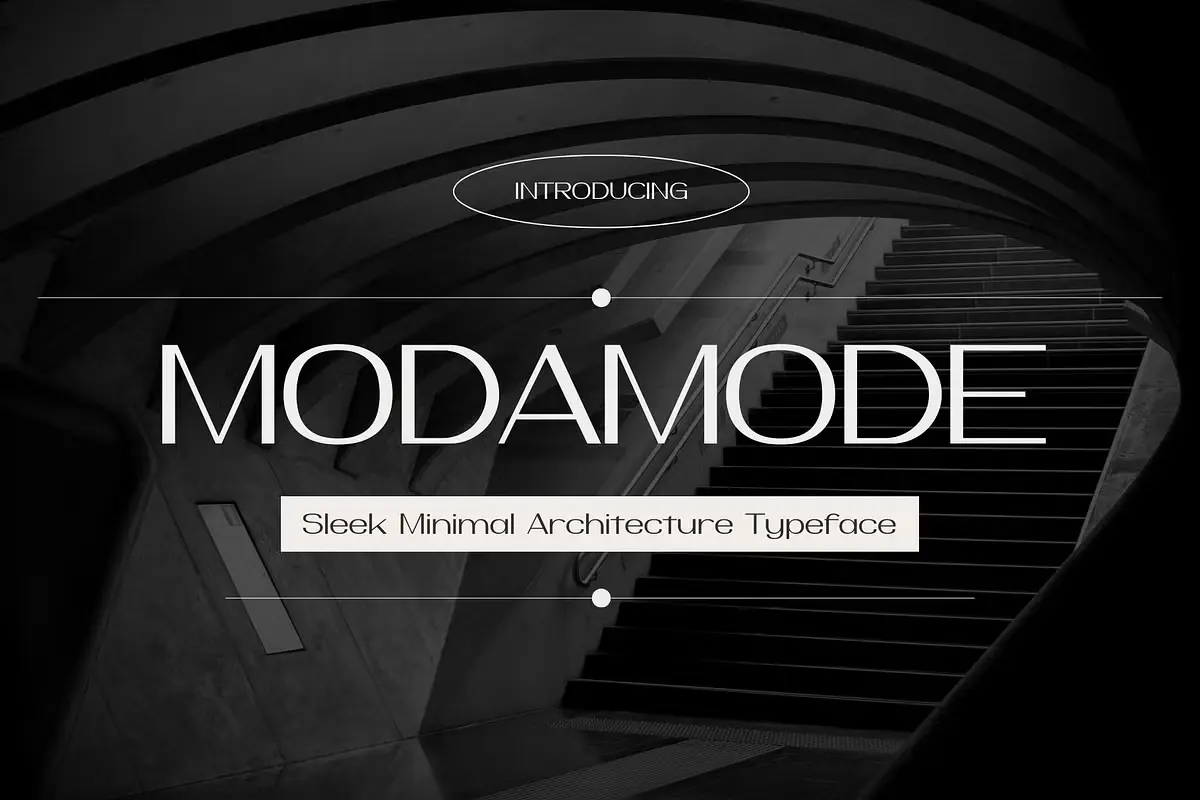
Modamode Font is a truly versatile sans serif font designed to elevate your projects with elegance and precision. Designed for those who appreciate clean aesthetics and timeless elegance, this typeface is perfect for architecture firms, fashion brands, upscale editorials, and high-end branding projects.
Crafted with geometric precision and subtle refinement, Modamode offers a perfect balance of form and function. Whether you’re designing a striking logo, an elegant magazine layout, or an exclusive brand identity, this typeface will elevate your project with a touch of modern sophistication.